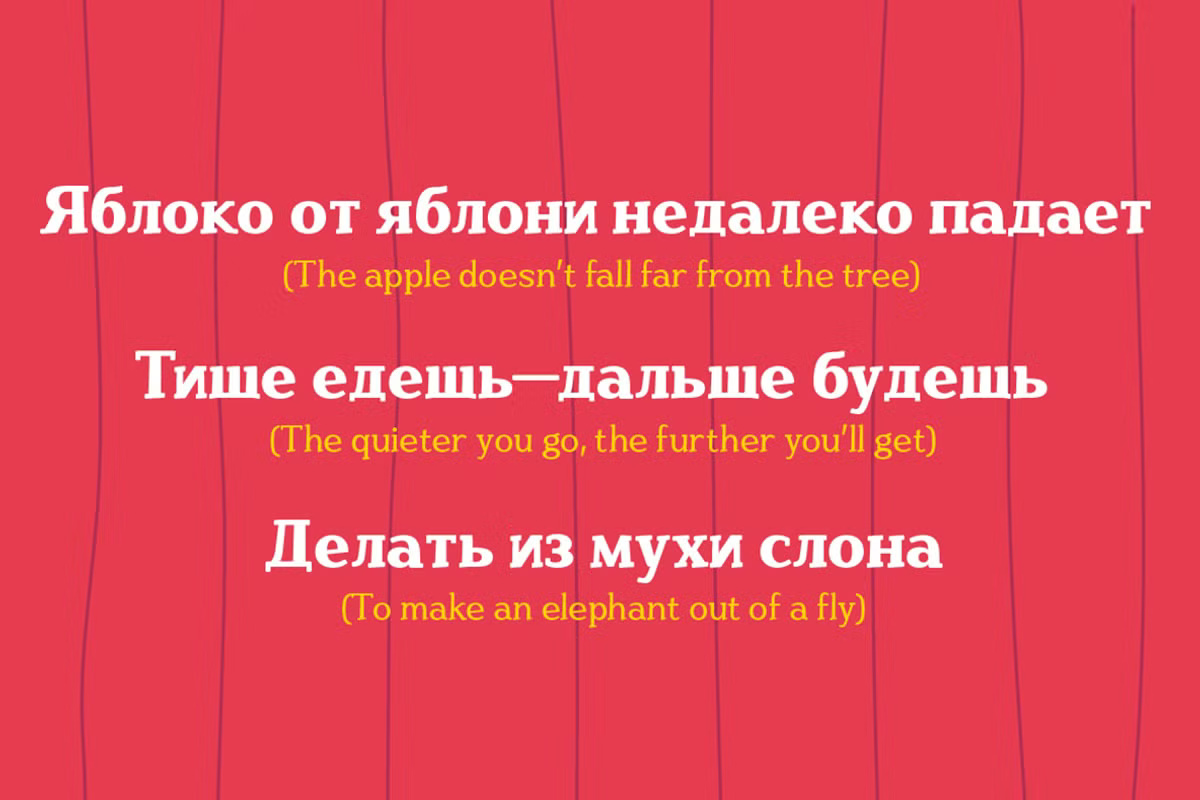
Bandy Font
Bandy Retro Slab Font strikes the perfect balance between round, curved edges and sturdy slab shapes, making its name a fitting reflection of its design. This versatile typeface excels as both a display font and a content text option, offering a contemporary yet distinctive look that enhances various design and print projects.
One of Bandy Font’s standout features is its extensive language support, ensuring readability across diverse cultures and regions. Additionally, its OpenType features provide expanded typographic possibilities, while support for both Latin and Standard Cyrillic scripts broadens its usability.
Bandy Slab Serif Font